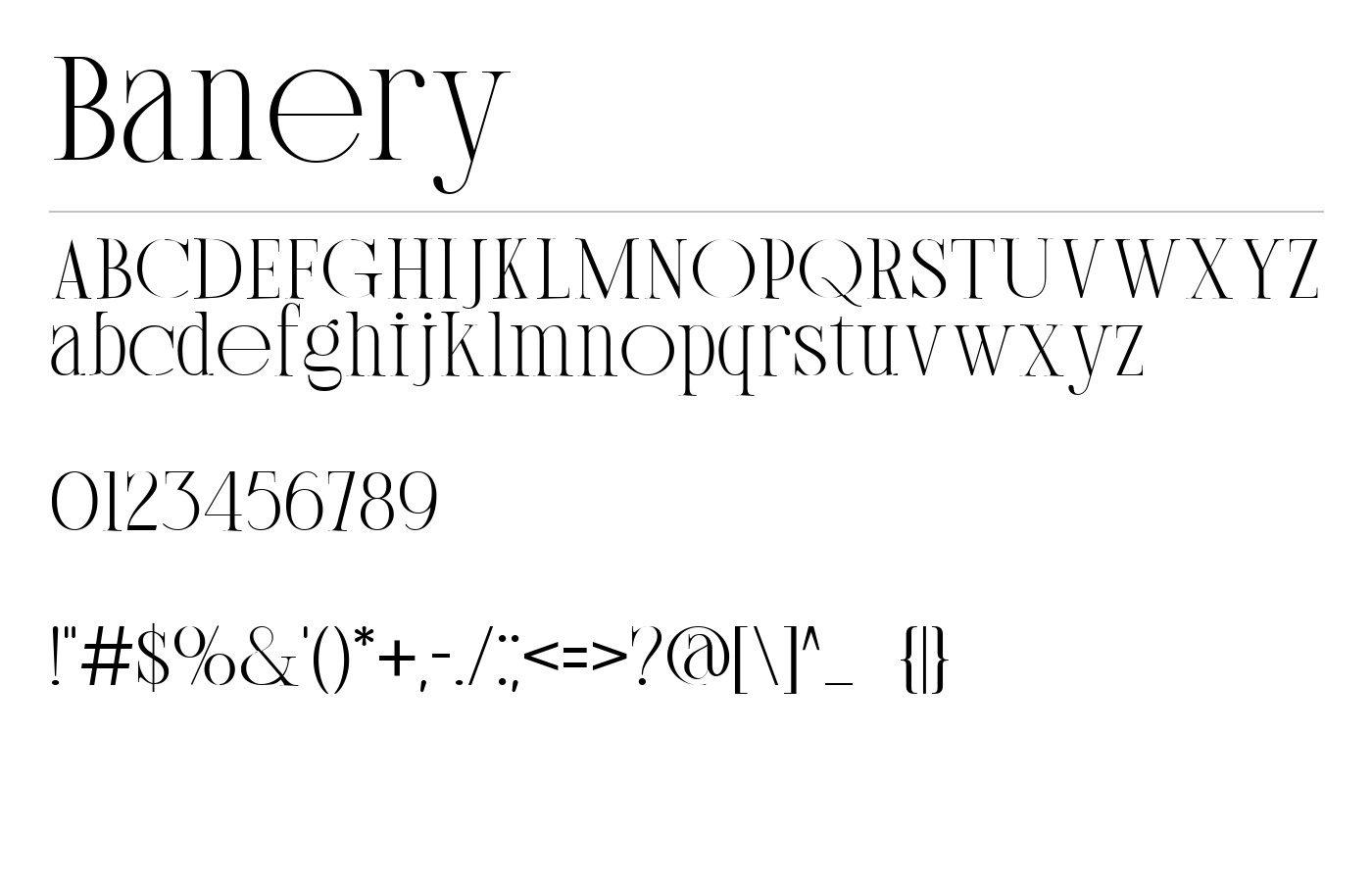
Banery is a delicate serif font with a modern Didone style, characterized by high contrast between thick and thin strokes and elegant, slender letterforms. Its tall x-height and refined details give it a sophisticated, luxurious feel, making it ideal for upscale branding, fashion headlines, and editorial design where a touch of elegance is desired. This font works beautifully in large sizes for logos or titles, conveying a sense of grace and high-end refinement.
Banery Font
About Banery Font
| Font family | Banery Font |